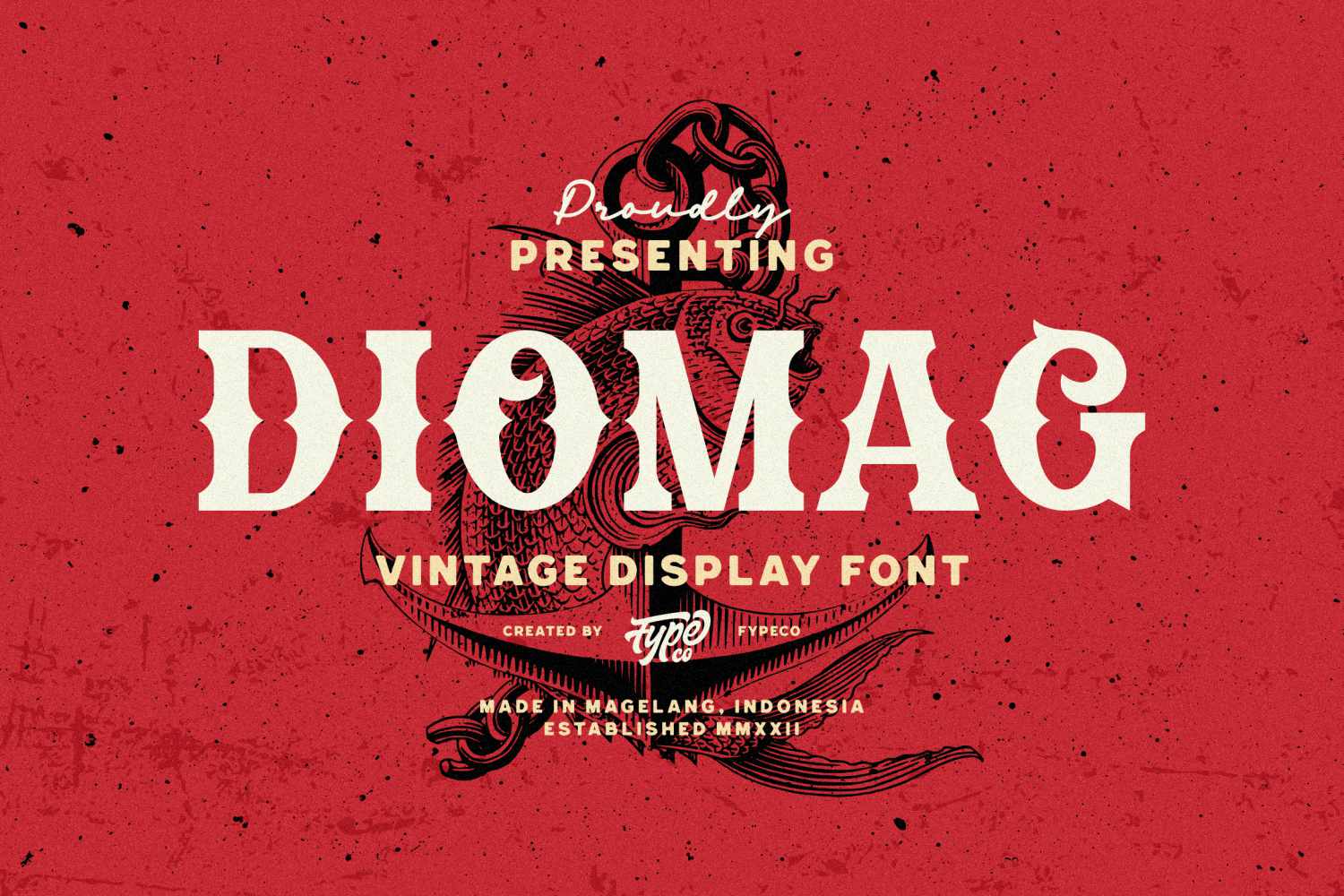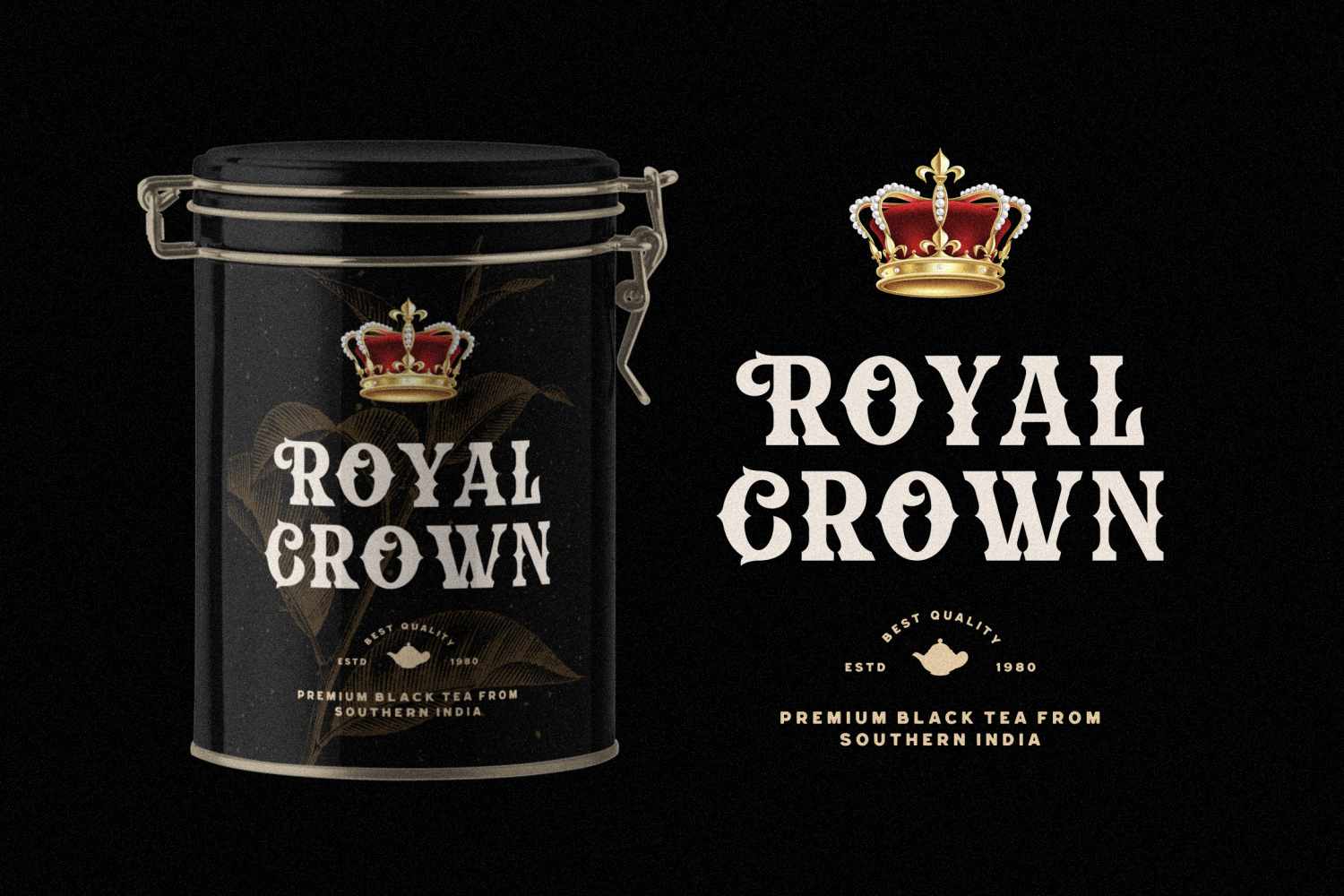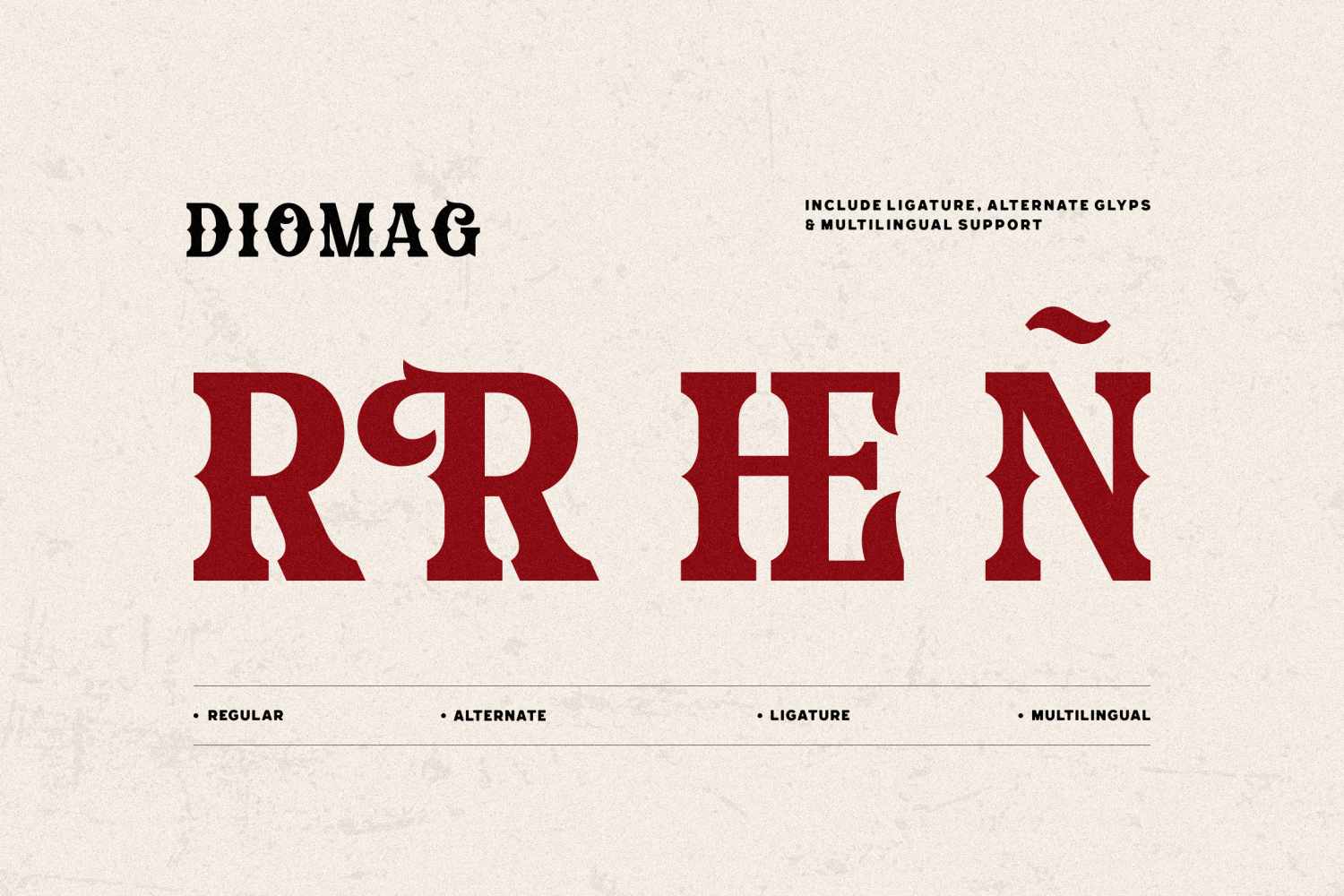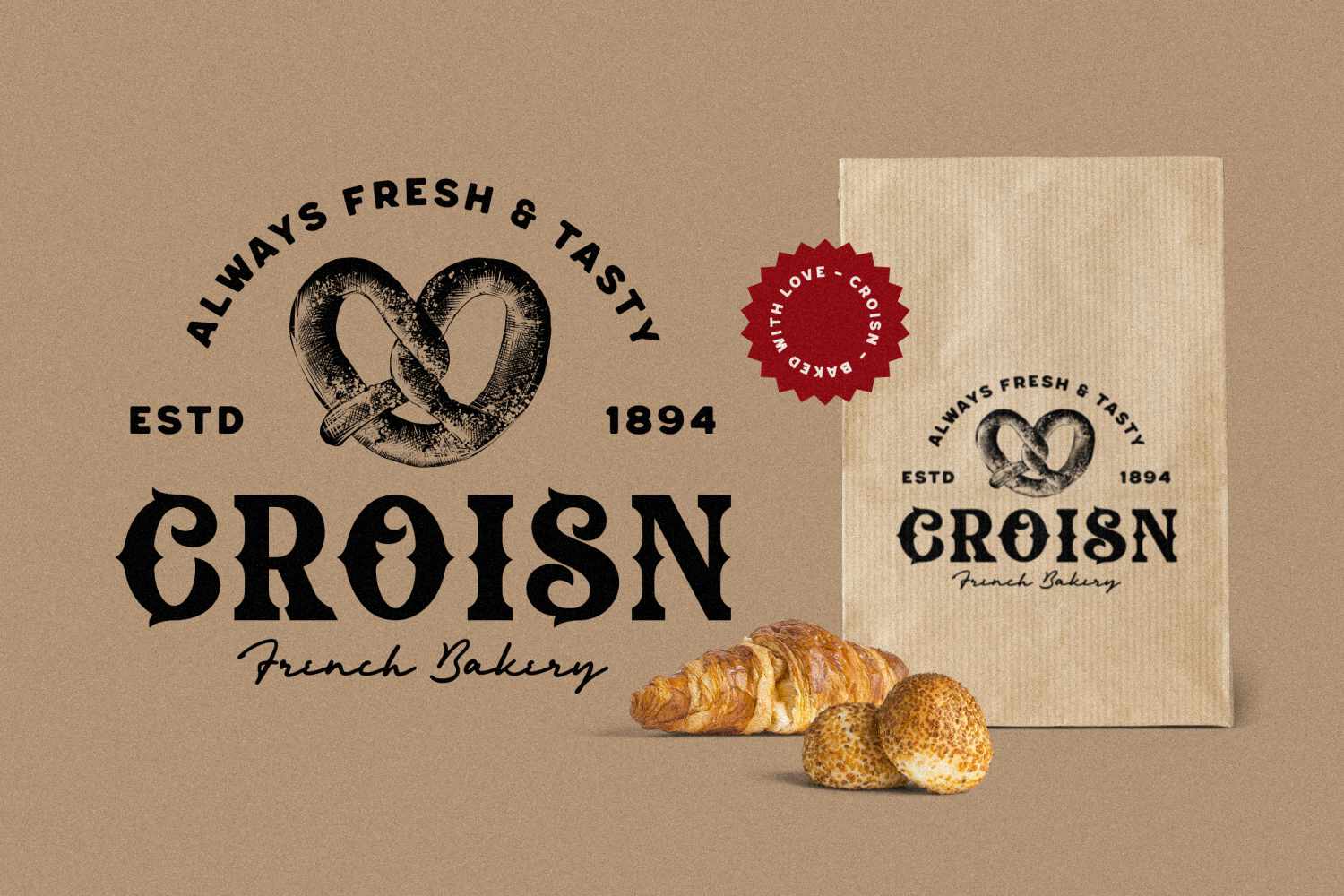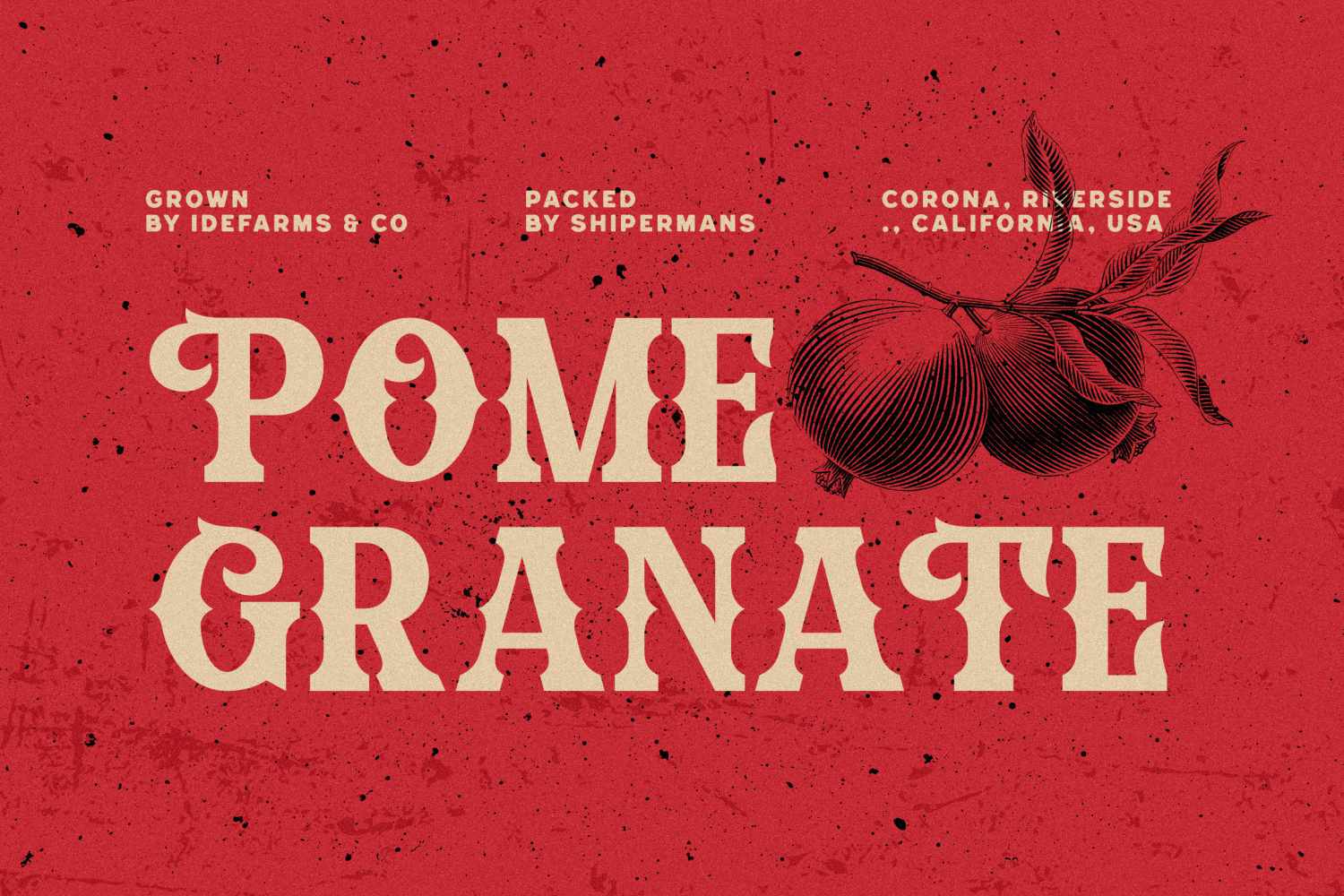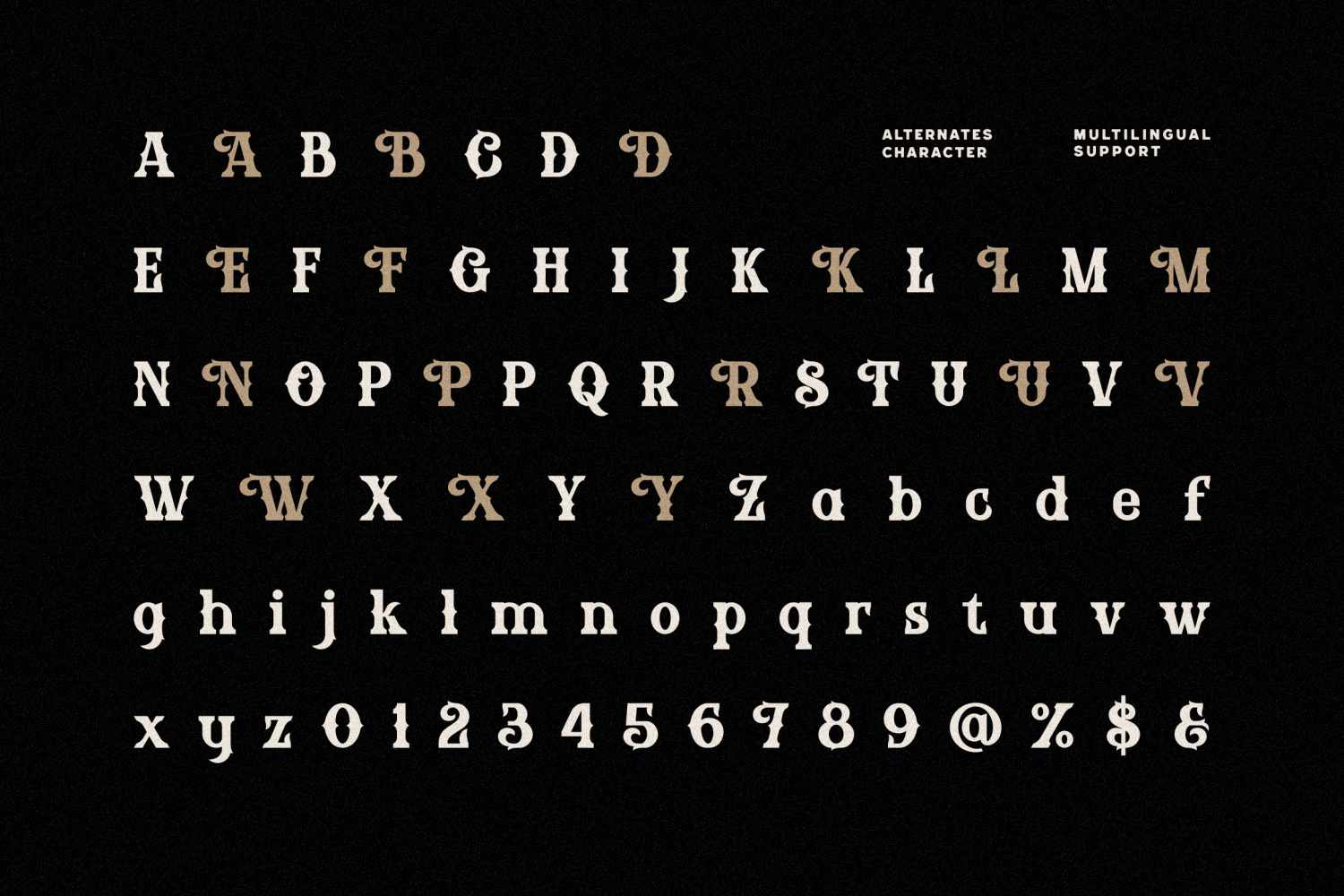
Diomag
Diomag is a bold vintage display font that blends classic western charm with strong modern appeal. Its sharp edges, ornamental alternates, and powerful letterforms make it an excellent choice for eye-catching headlines, retro branding, product packaging, and logo designs with a nostalgic touch. Inspired by traditional typography, Diomag adds authenticity and character to every project.
Equipped with stylish ligatures, alternates, and multilingual support, Diomag gives designers versatile options to craft unique and memorable visuals. From beverage labels and bakery branding to posters, apparel, and editorial layouts, this typeface ensures your design stands out with a rugged yet elegant personality. Diomag brings the spirit of vintage design into the modern era.